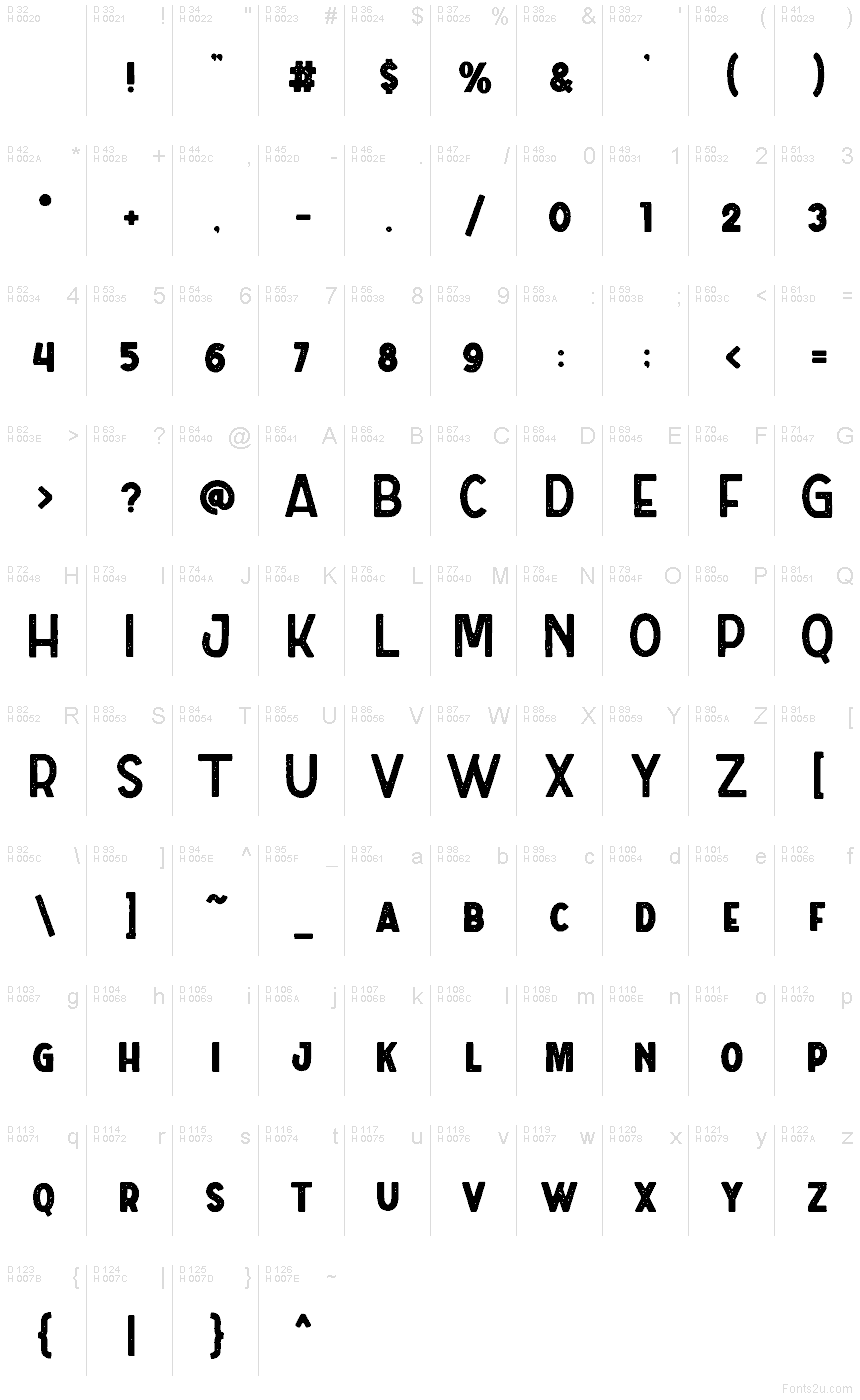
Orange Street Texture
Orange Street Texture font by PutraCetol Studio is a free display font with an eroded design. It carries a vintage-inspired look characterized mostly by a textured appearance that immediately gives off retro charm. However, the effect set also balances out its casual vibe with elegant touches, presenting texts that are visually engaging.
Visual appeal is key to any project and Orange Street does not disappoint in this department. You can use it for long-awaited store launches, summer sale ads, restaurant menus and brand designs for food businesses, as well as apparel items like t-shirts for adults or children. Also create amusing birthday cards or invitations to fun events.